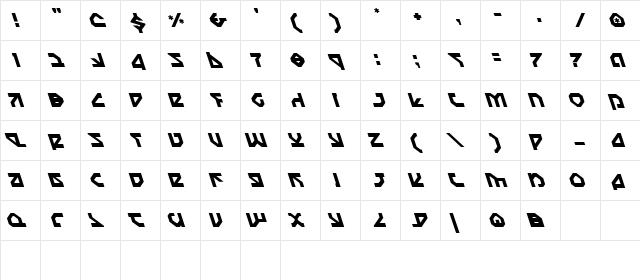
Nostromo Leftalic Font Preview
Nostromo Leftalic Leftalic
Design Context for Nostromo Leftalic Typeface
Nostromo Leftalic is a composed and adaptable typeface that performs quietly and consistently across a wide range of design contexts. The slanted form adds forward momentum and visual energy.
Pro Tip: Use Nostromo Leftalic for emphasis, pull quotes, and subheadings where its slanted energy can add rhythm to the layout.